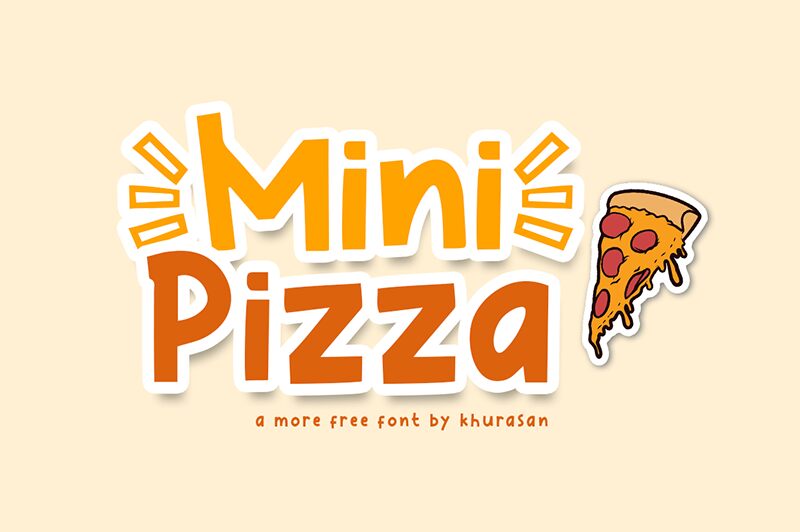
Mini Pizza
Looking for a fun and playful font that will add some personality to your next project? Look no further than Mini Pizza, designed by Khurasan. This bold display font boasts a charming cartoon style that's perfect for everything from children's books and party invitations to branding for food and beverage companies. Whether you're looking to make your message stand out with big, bold lettering or add a touch of whimsy to your design, Mini Pizza is the perfect choice. So why settle for boring when you can have pizza – er, I mean – Mini Pizza?